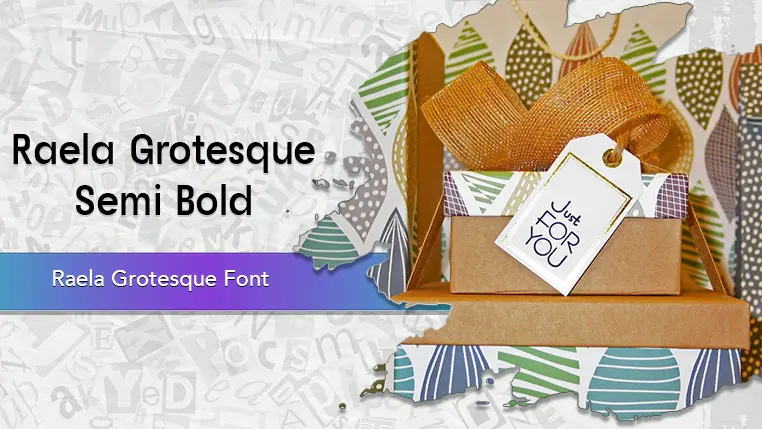
The Raela Grotesque font family may be ideal for you if you enjoy working on an artistic design project. The lively, expressive look of this typeface, which was created by Lettertype Studio, makes it ideal for Branding and Logos. The font's legibility on screens, even at small sizes, makes it a reliable choice for body text, headlines, and user interfaces on websites and apps. It's well-suited for magazines, posters, and editorial layouts where a clean, professional, and contemporary look is desired. and other light-hearted visual projects.
Black, Bold, Extra Light, Light, Medium, Regular, Semi Bold, Thin are the nine primary font styles of the Raela Grotesque font family. You may build dynamic, visually appealing text layouts with the distinct flair that each style offers. With crisp, readable lines and a relaxed tone.